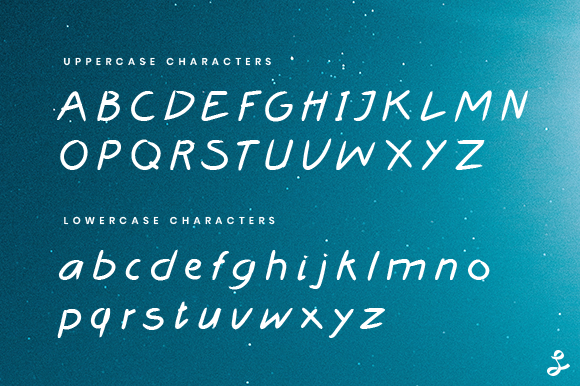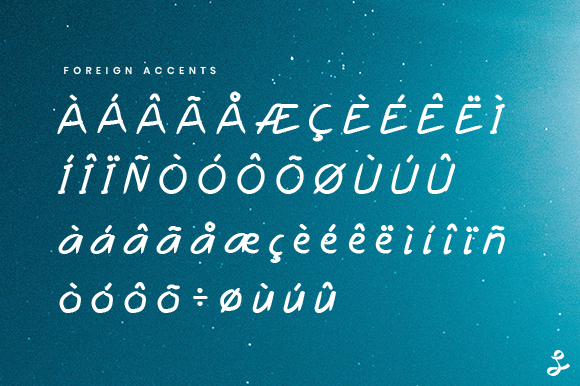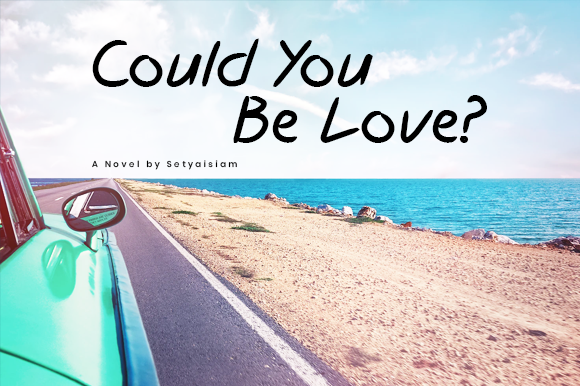
Never Be Lonely Font
About Never Be Lonely Font
Never Be Lonely is an incredibly bold and cute script font that radiates life. It will radiate authenticity from across a wide variety of design projects.